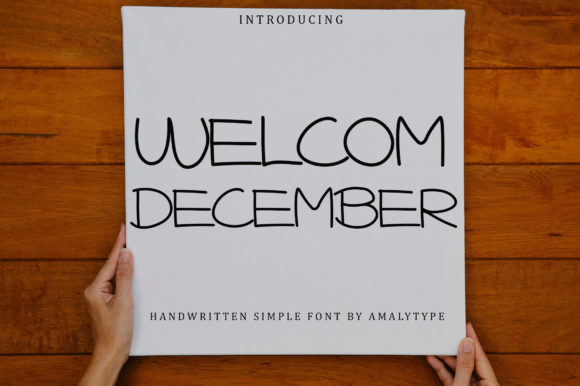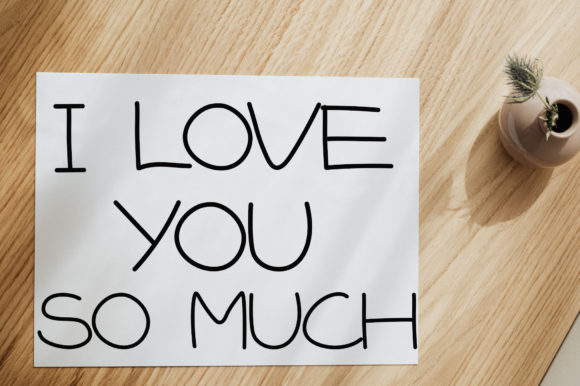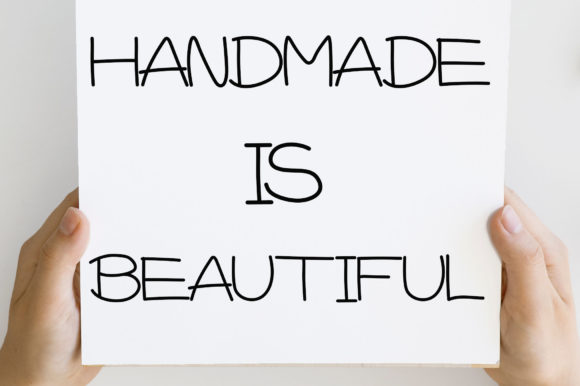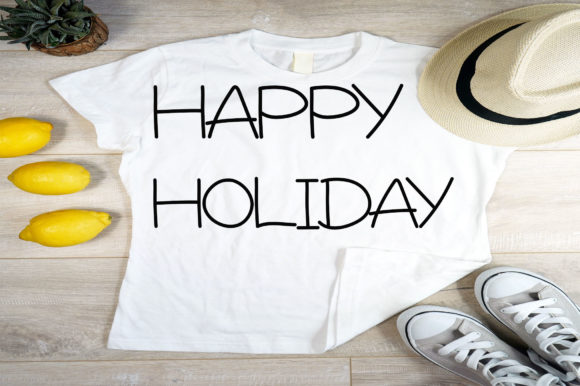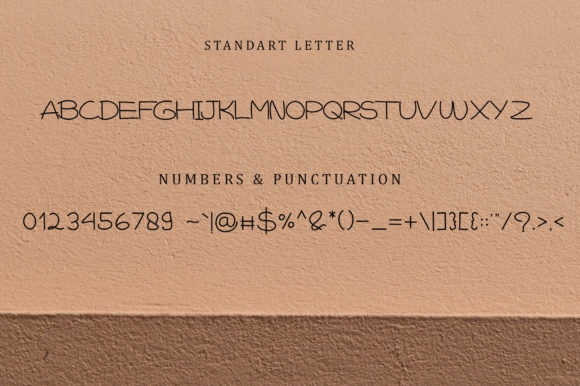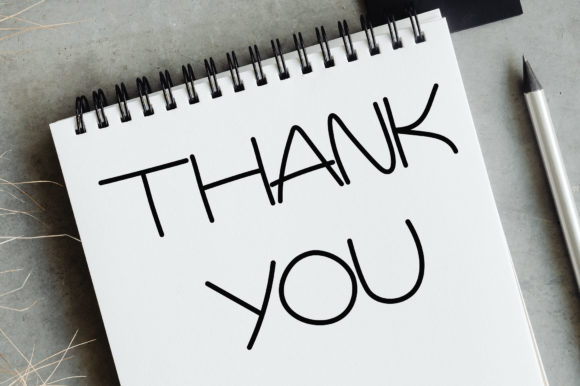
Welcome December Font
About Welcome December Font
Welcome December is a cute and simple lettered handwritten font that can be used for all chalkboard quotes or teaching material! Its authentic look will add a personal and realistic feel to your designs.